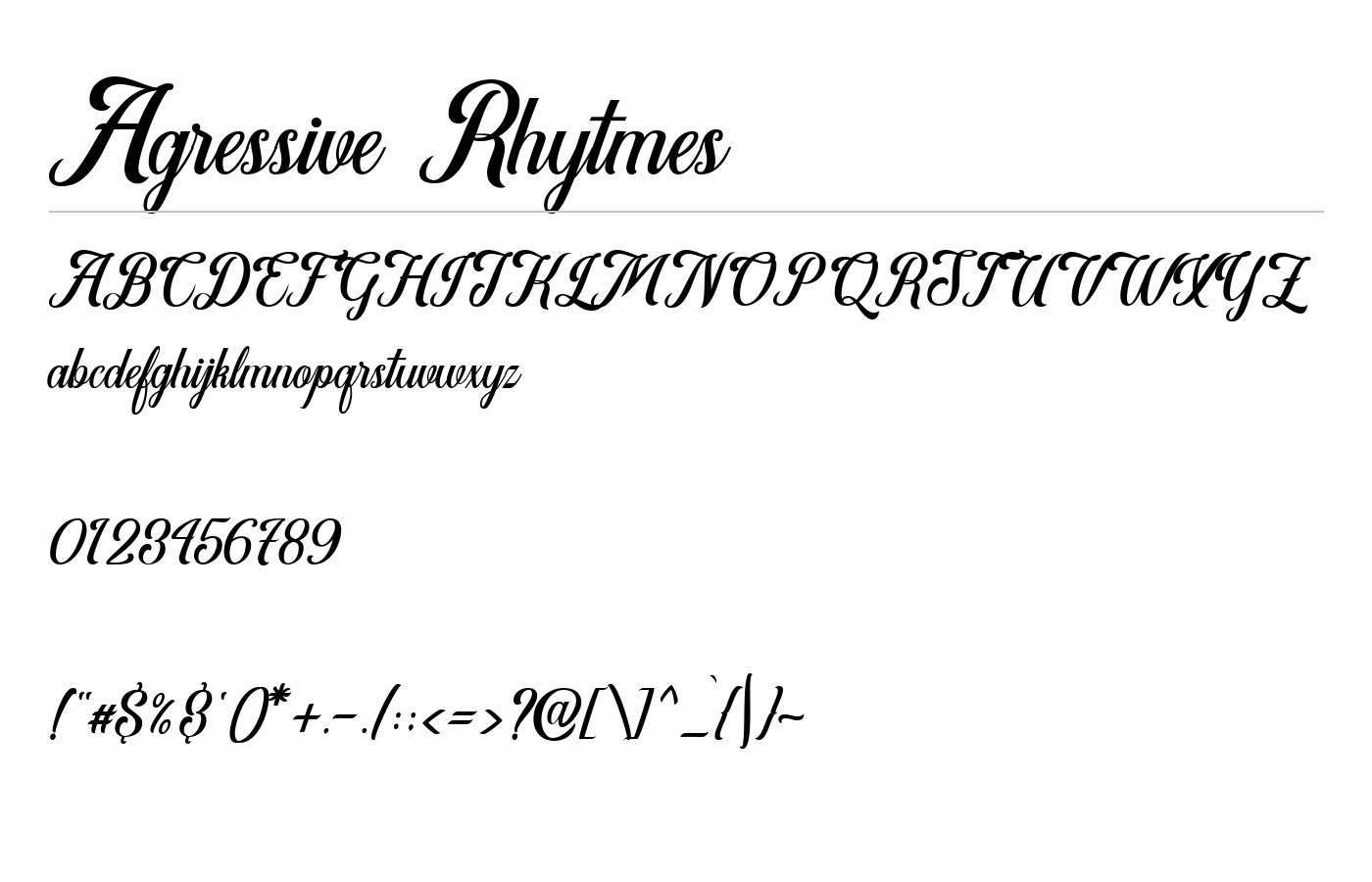
Agressive Rhytmes is an elegant script font with a classic, flowing style that combines smooth curves and moderate contrast between thick and thin strokes. Its tall, narrow letterforms and cursive connections create a refined, vintage charm, making it ideal for sophisticated branding, invitations, and stylish headlines. This font works best where a touch of graceful personality and timeless appeal is desired.
Agressive Rhytmes Font
About Agressive Rhytmes Font